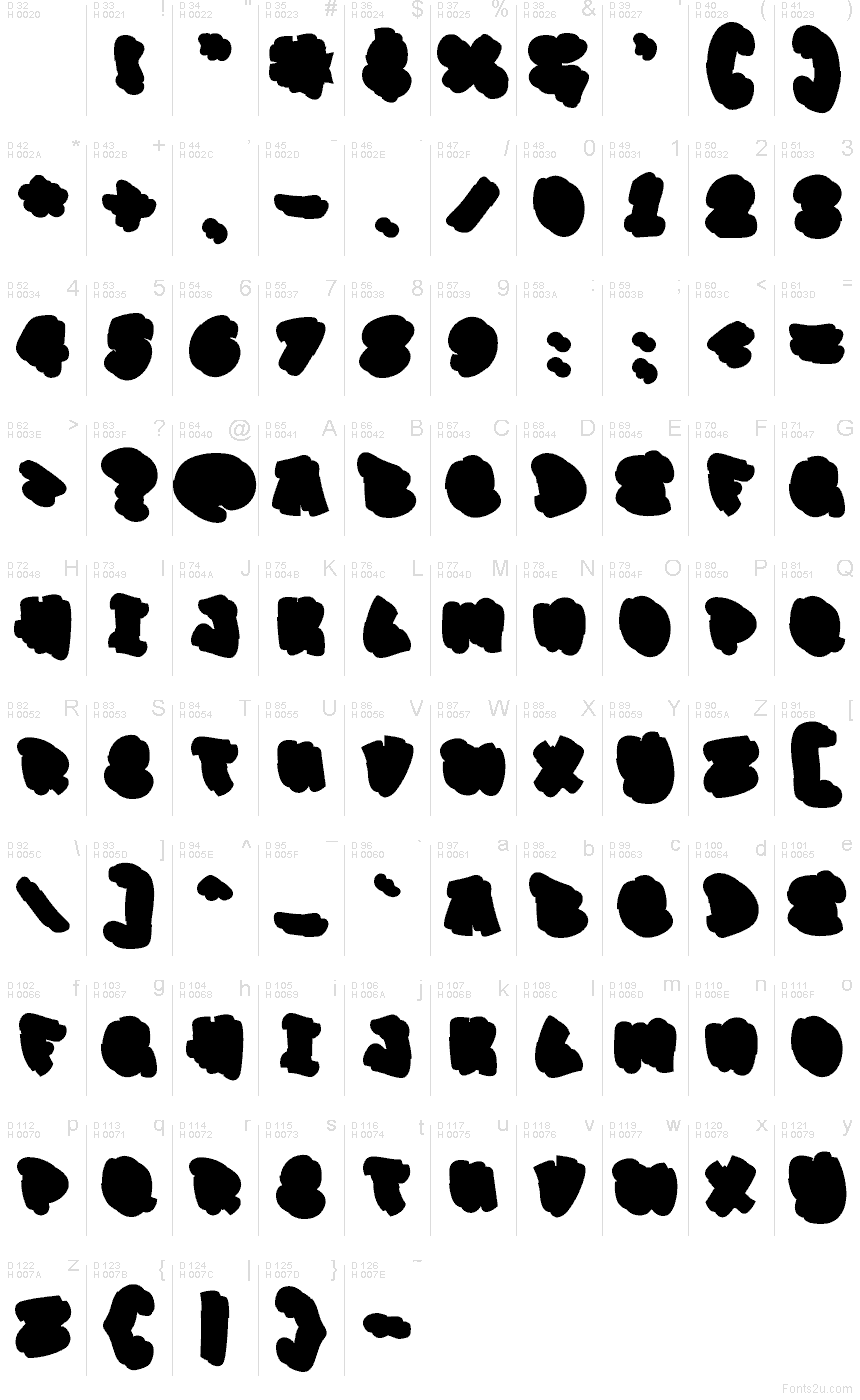
Drop Shade Extrude
Drop Shade Extrude font by Muhammad Panji Ramdhani of Cikareotype is a free graffiti font that feels like fresh throw-up tags still glistening on a wall. Huge, rounded blobs slam into each other, creating a thick, inky mass with a built‑in extruded depth that reads loud even in a single color. The Drop Shade Extrude family’s weighty curves and tight spacing give every word a dense, bombed‑out presence that’s hard to ignore.
This free typeface shines on streetwear logos, rap or EDM cover art, festival posters, skateboard graphics, stickers, and bold social posts. Using Drop Shade Extrude at oversized headline scales, then pairing it with a simple condensed sans for small text, keeps layouts readable while preserving that raw, street‑level energy.